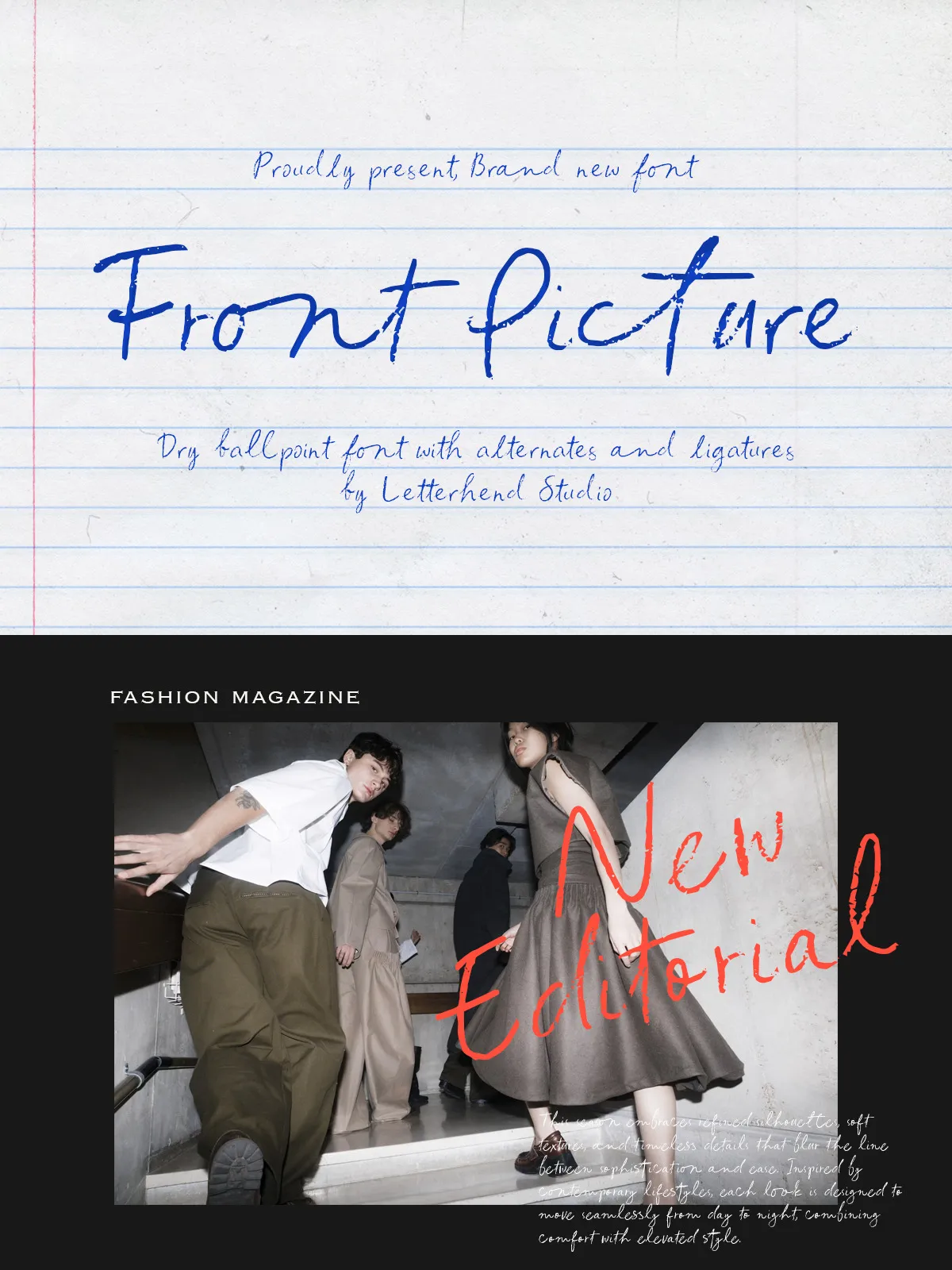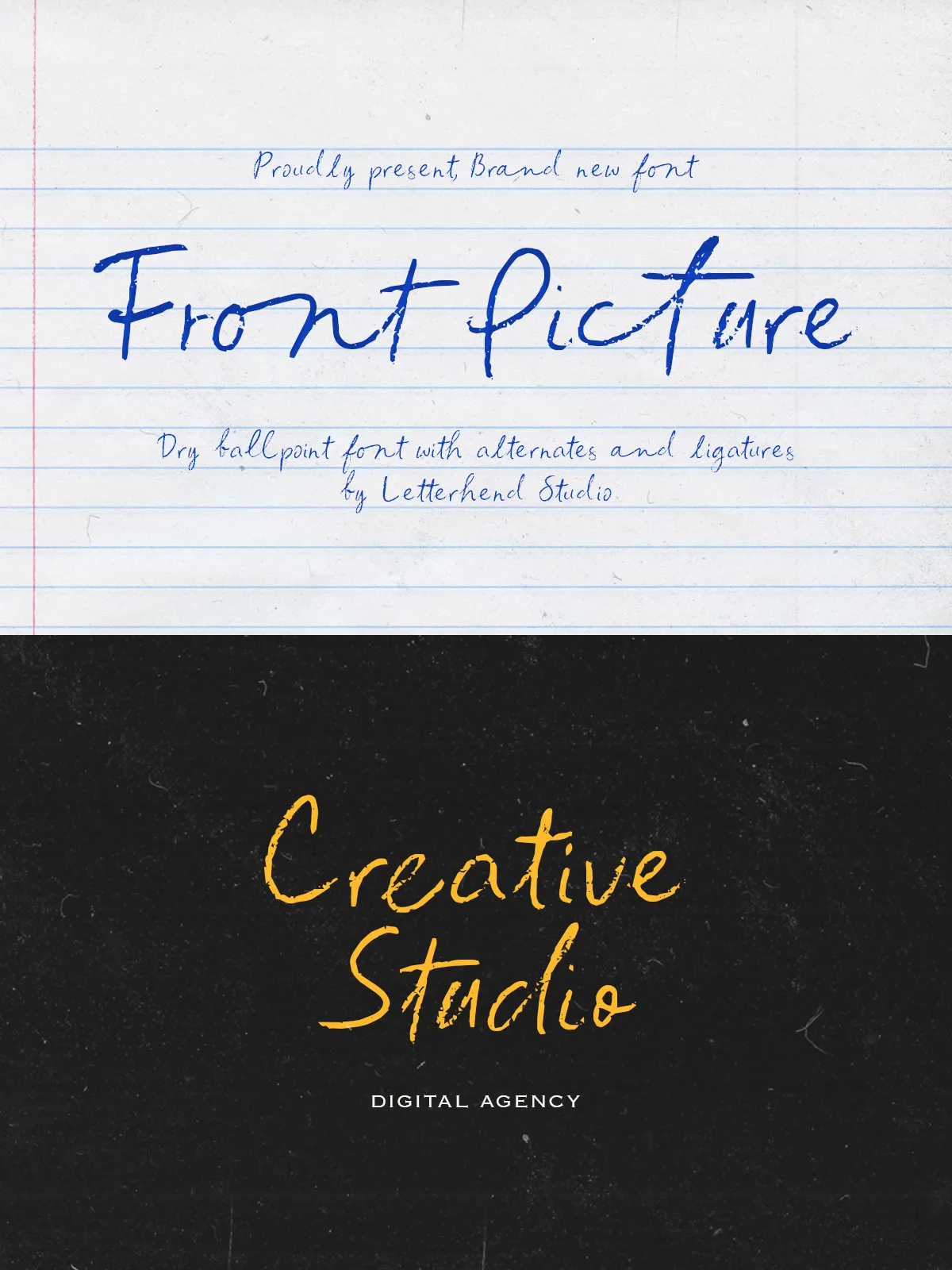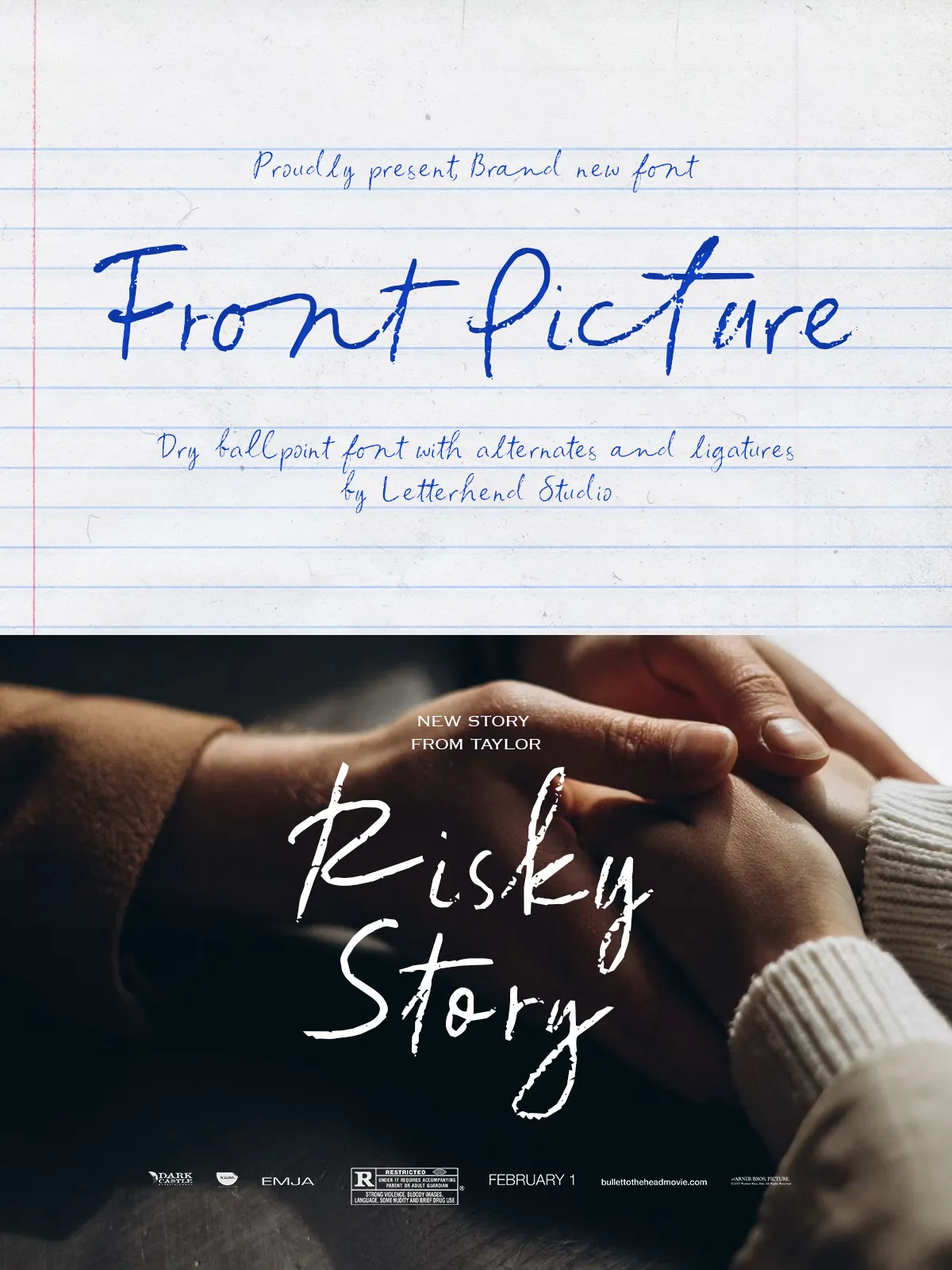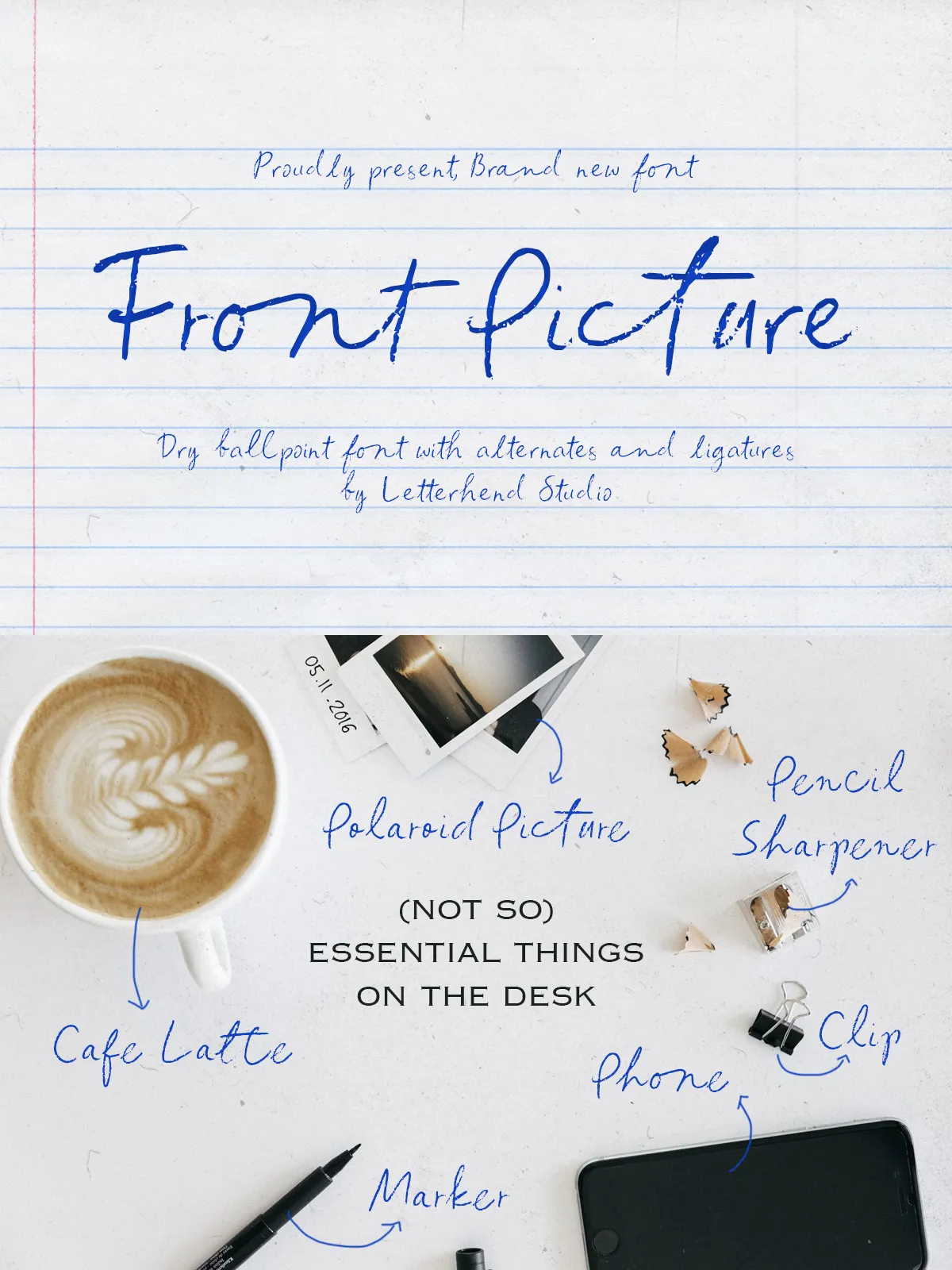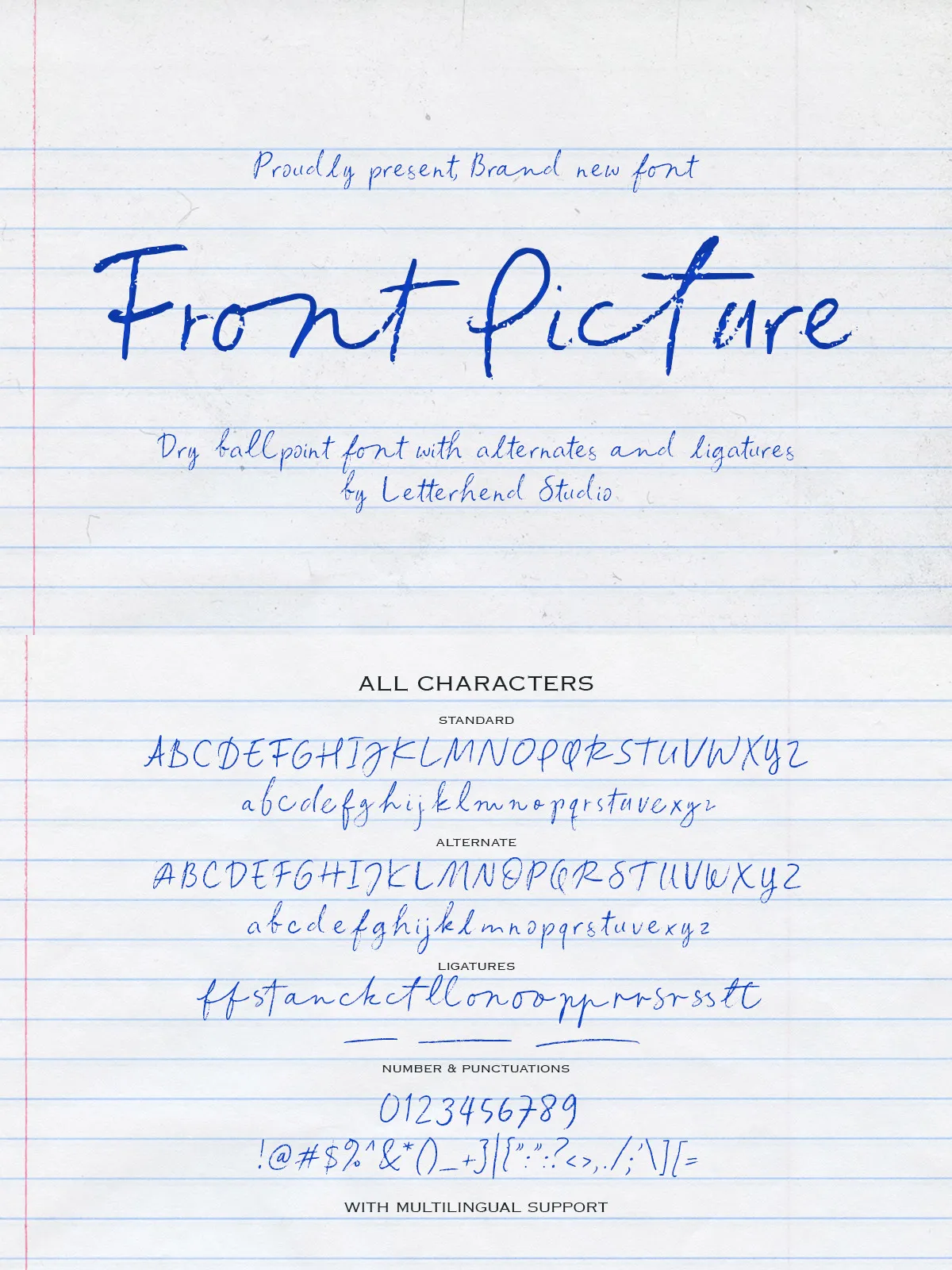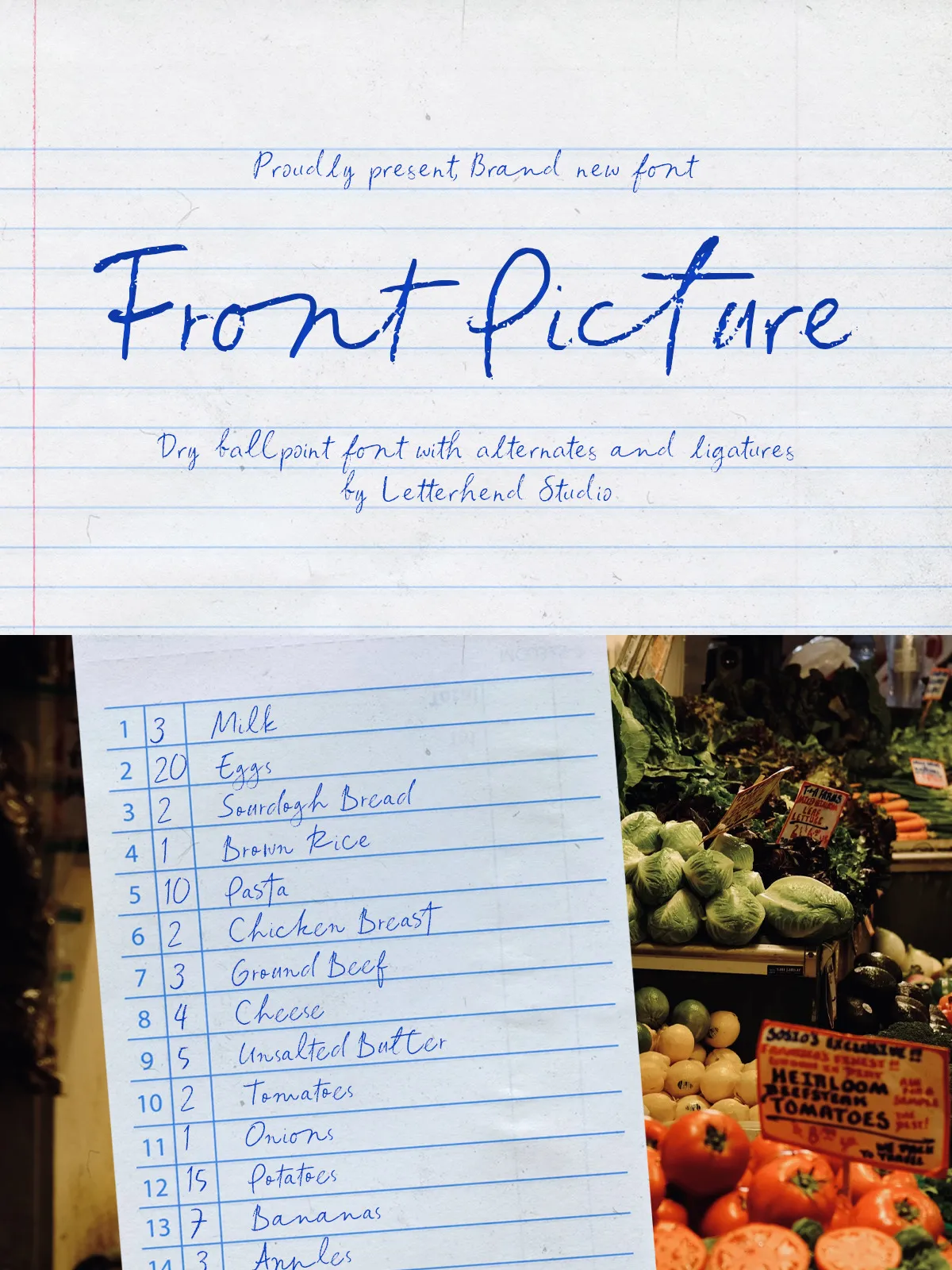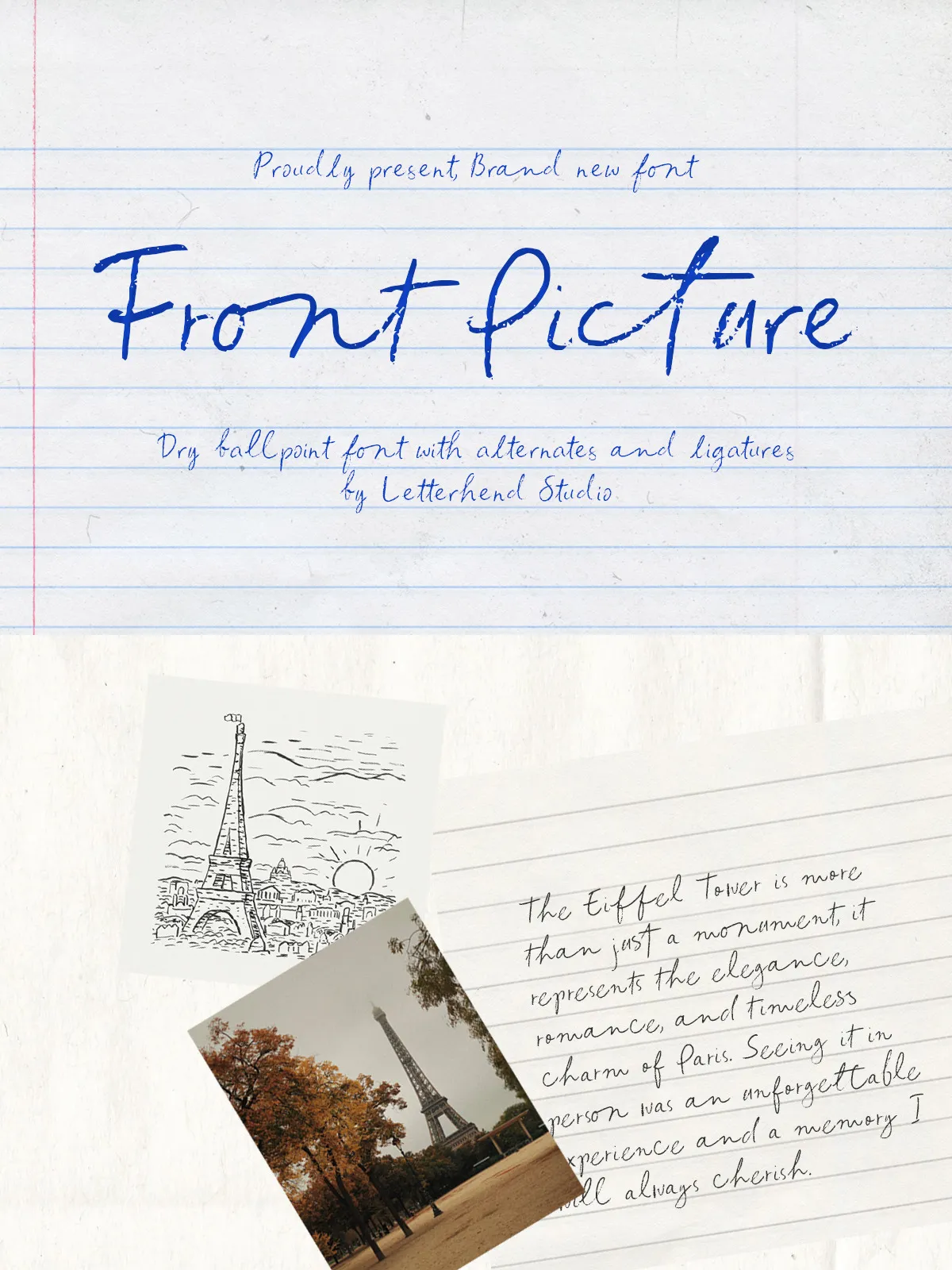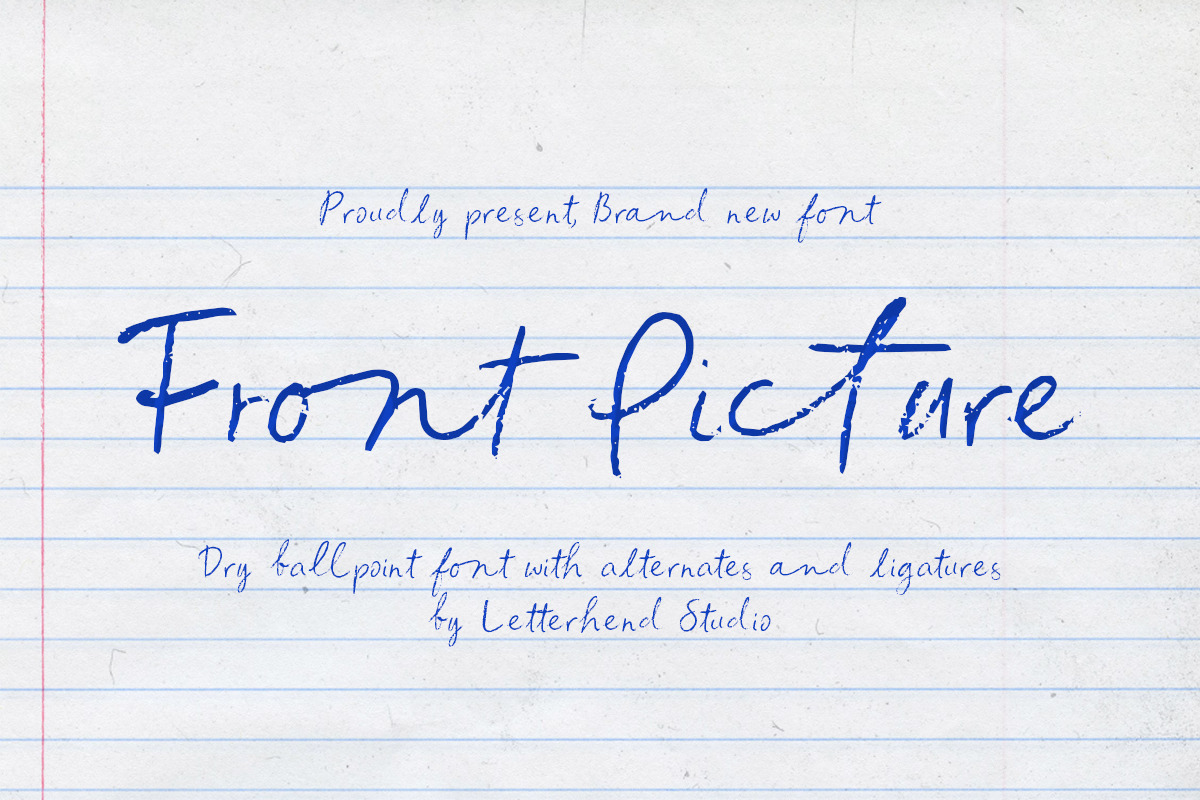
Front Picture captures the intimate charm of notes scribbled in the margins of a notebook. It blends the dry texture of a ballpoint pen with a relaxed, natural flow to produce letterforms that read like a real, unguarded thought. Slightly rough strokes, uneven pressure, and an organic, handwritten cadence make every word feel lived-in and immediate. Front Picture brings personality and warmth to designs that need a sincere, handmade voice.
Design Characteristics
Textural Ballpoint Stroke
Front Picture emphasizes the grain and friction of a ballpoint tip sliding across paper. The texture reads clearly at display sizes and still holds character in smaller uses, so your designs preserve authenticity without losing legibility.
Relaxed Natural Flow
Letters connect and breathe with a casual rhythm. The font’s spacing and stroke variation convey the spontaneous energy of quick handwriting while remaining balanced for consistent typesetting. This makes Front Picture ideal for projects that benefit from both informality and design control.
Slight Roughness and Dynamic Pressure
Intentional irregularities — thin-to-thick transitions, uneven pressure marks, and subtle wobble — give the font a convincing human touch. These details make Front Picture feel honest and approachable, perfect for contexts where warmth is more valuable than mechanical perfection.
Features
- Uppercase and lowercase characters for full typographic flexibility.
- Numbers, punctuation, and basic symbols included for practical use.
- Alternates and ligatures to enable organic variation and avoid mechanical repetition.
- Multilingual support so your message can reach wider audiences with consistent tone.
Ideal Use Cases
Everyday and Editorial Contexts
Use Front Picture for captions, journal entries, pull quotes, and editorial details. Its marginal-note personality makes text feel immediate and lived-in, ideal for storytelling layouts and lifestyle editorial content.
Branding and Packaging
Front Picture lends artisanal authenticity to product packaging, labels, and boutique branding. Apply it to small-run goods, craft foods, beauty products, and stationery to communicate handcrafted care and personal attention.
Social and Personal Projects
Deploy the font across social media graphics, moodboards, handwritten quotes, and personal branding to create content that feels intimate and human. The font’s informal nature helps social posts cut through polished noise with relatable personality.
Practical Guidance
Pairing Recommendations
Pair Front Picture with a neutral sans-serif for body copy to maintain readability while showcasing the handwritten headlines. A clean geometric or humanist sans offers contrast that highlights the font’s textured strokes without competing for attention.
Spacing and Size
Reserve Front Picture for short lines, captions, and display text. Increase tracking slightly for longer headings to preserve legibility and reduce crowding from textured strokes. At smaller sizes, test contrast and consider slightly darker weights or color to retain clarity.
Texture and Materials
For print, choose uncoated or lightly textured paper stocks to amplify the ballpoint grain. For digital contexts, consider subtle paper or grain overlays behind text blocks to enhance the tactile impression without hindering legibility.